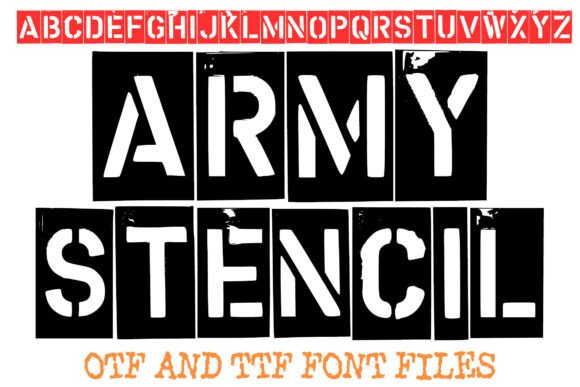
The Army Stencil Font: A Bold, Rugged Typeface for Your Next Design Project
I still remember the design project that led me to discover the Army Stencil Font. I was working on a military-themed poster for a client, and I was struggling to find a font that captured the rugged, industrial feel I was going for. I had tried several stencil fonts, but they either looked too perfect or too bland. That’s when I stumbled upon the Army Stencil Font, created from real metal stencils. It was love at first sight! ✨
- 💯 The authentic, distressed military look that adds a touch of ruggedness to any design
- 🚀 The versatility of the font, perfect for posters, logos, t-shirts, packaging, signage, and DIY crafts
- 👍 The bold, industrial feel that works seamlessly with military themes, army-inspired projects, survival graphics, and retro packaging
While the Army Stencil Font is an excellent choice for many designs, there are a few things to keep in mind: 🤔
- ⚠️ The font’s distressed look might not work well for very small text sizes or body copy
- ⚠️ Some characters may have limited alternates, which could limit creative freedom
The Designer Inspiration Behind the Army Stencil Font
The Army Stencil Font was inspired by the real metal stencils used in military and industrial settings. The designer, who wishes to remain anonymous, wanted to create a font that captured the rugged, distressed look of these stencils. The result is a bold, industrial typeface that’s perfect for adding a touch of strength and character to any design.
| Is the Army Stencil Font suitable for body copy or small text sizes? | While the font can be used for body copy, it’s recommended for headlines, titles, and larger text sizes to maintain its bold, industrial feel. |